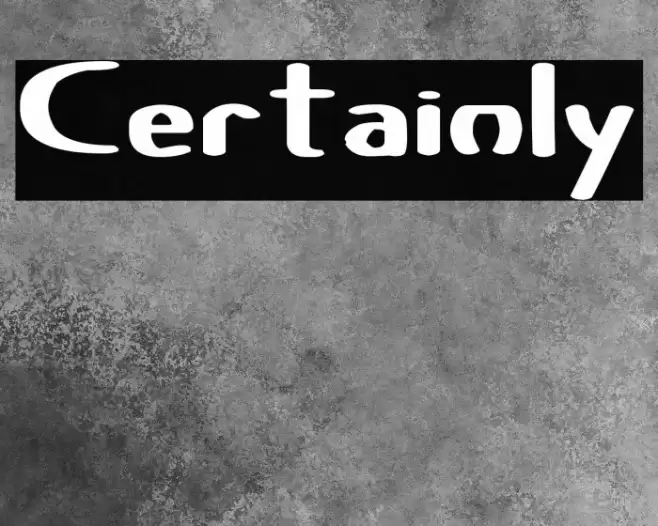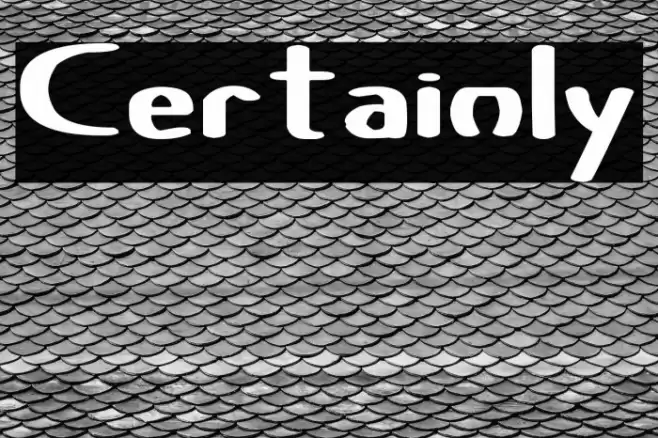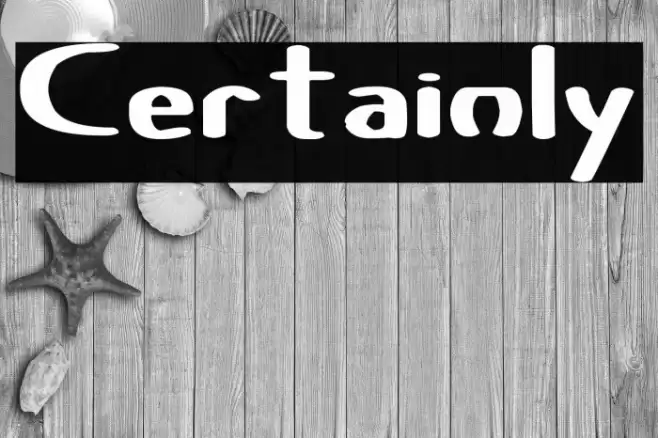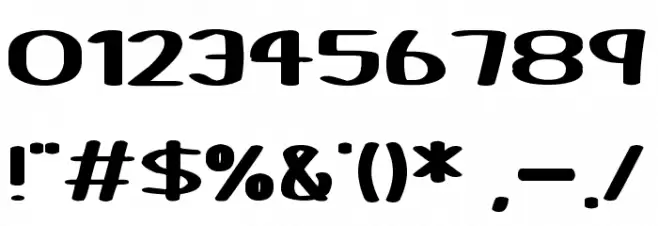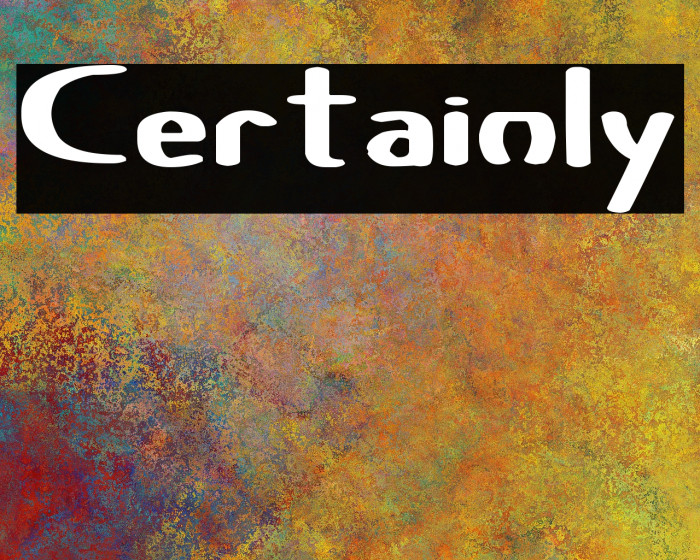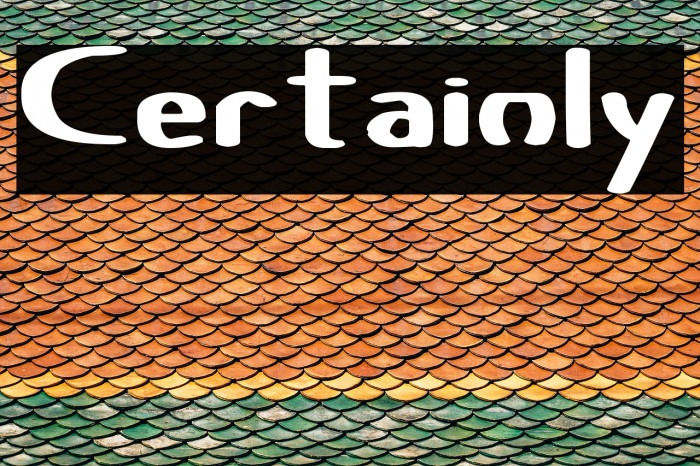
Certainly Font
Certainly Description
This font features a playful and bold style with rounded edges and a slightly irregular form, giving it a hand-drawn appearance. The uppercase letters are uniform in height, while the lowercase letters maintain a consistent baseline with some variations in ascenders and descenders. The numerals are bold and easily distinguishable, matching the overall style of the alphabet. Special characters are included, maintaining the same whimsical and bold characteristics. The font's design is approachable and friendly, making it suitable for informal and creative projects.
A playful, bold font with rounded edges and a hand-drawn feel from Uncategorized fonts.
- Proposed Projects: Ideal for children's books, playful branding, posters, and creative invitations.
- Overall Style: Playful, Hand-drawn